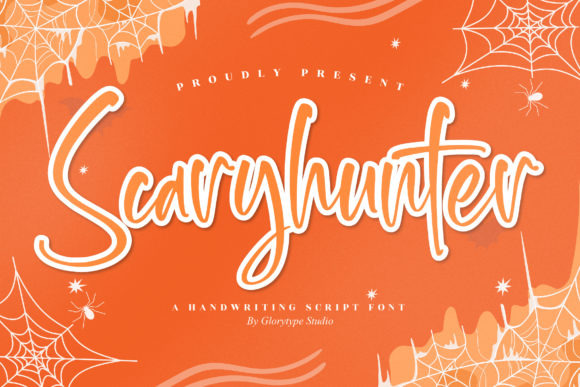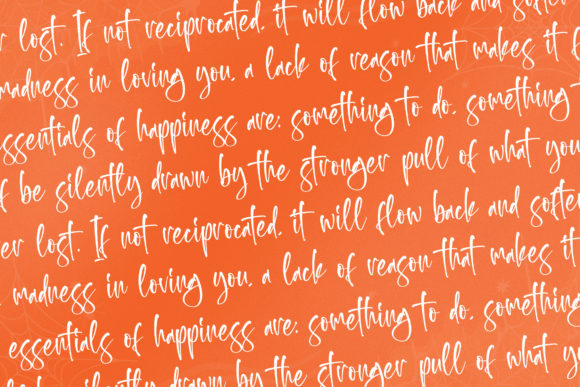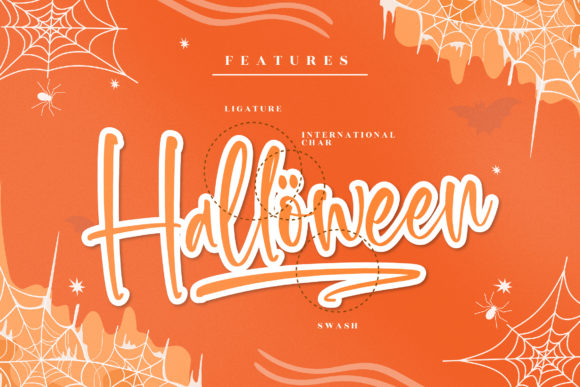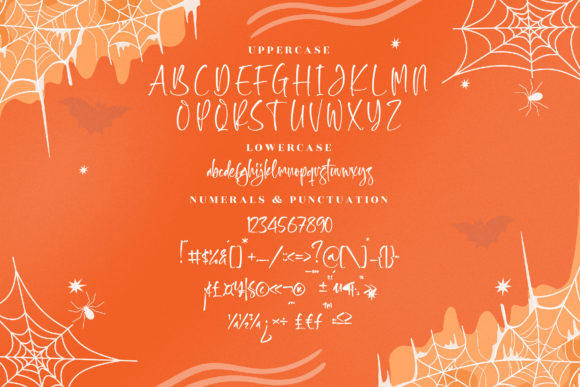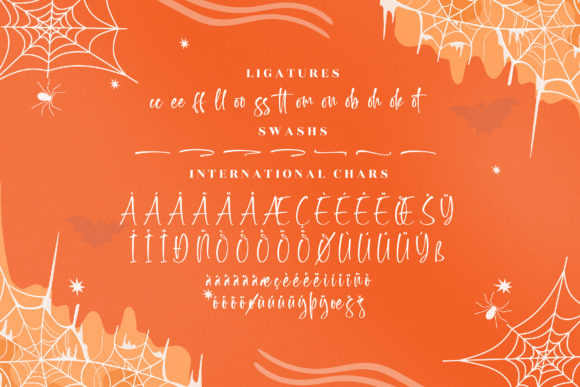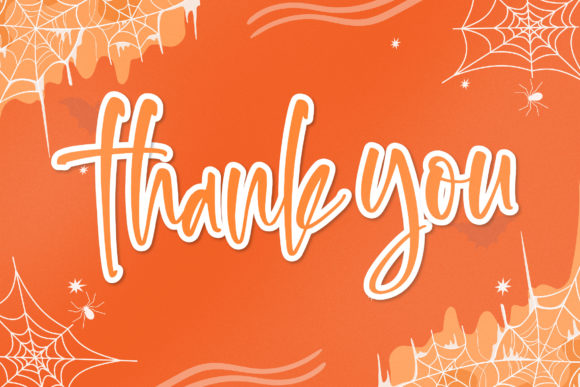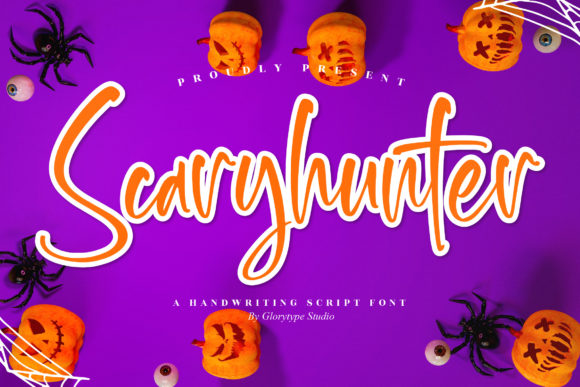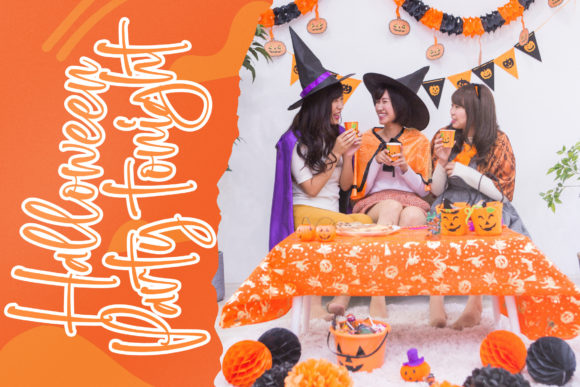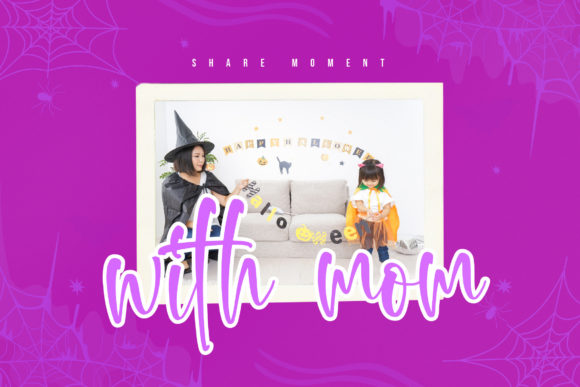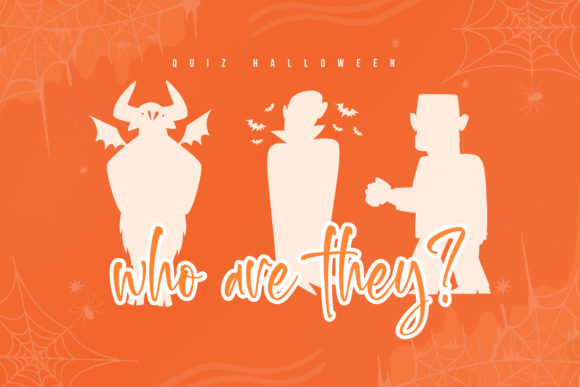
Scaryhunter Font
About Scaryhunter Font
Scaryhunter is a captivating Handwriting Script Font, meticulously crafted by Glorytype Studio, and is well-suited for a diverse array of creative projects. Its versatility makes it an excellent choice for various design applications, including logos, branding projects, homeware designs, product packaging, mugs, quotes, posters, shopping bags, t-shirts, book covers, name cards, invitation cards, greeting cards, labels, photography, watermarks, special events, and any other projects that benefit from a touch of beautiful script typography.
The font’s distinctive charm lies in its handwritten style, adding a personal and authentic feel to your designs. Scaryhunter effortlessly adapts to different contexts, making it an ideal option for both digital and print media. Whether you’re working on commercial branding or personal projects, this script font enhances the visual appeal of your creations with a beautiful and engaging script taste.
Scaryhunter’s versatility shines through in its ability to convey a range of emotions and styles, making it suitable for a broad spectrum of design themes. Whether you aim for a casual and friendly vibe or a more sophisticated and elegant look, this script font delivers, enhancing the overall aesthetic of your projects.
The font’s application extends to various items, from merchandise like t-shirts and mugs to print materials like book covers and posters. Its adaptability ensures that it remains a valuable asset for designers looking to infuse a sense of creativity and warmth into their work.
In summary, Scaryhunter stands as a testament to Glorytype Studio’s commitment to creating a script font that goes beyond mere letters, offering a tool that adds character and beauty to your designs. Whether used for commercial branding or personal expression, this Handwriting Script Font elevates your projects with a charming and unique script style.